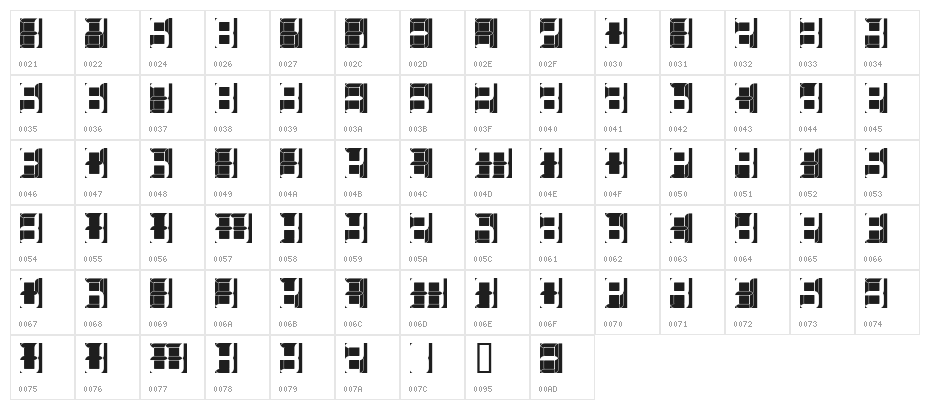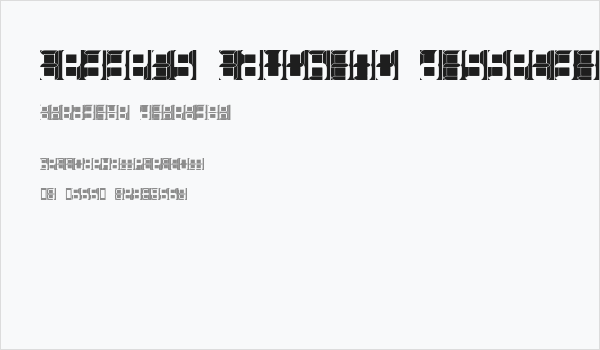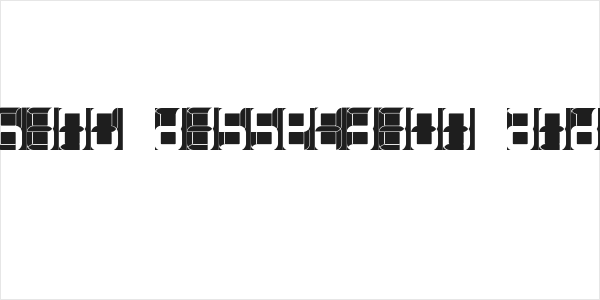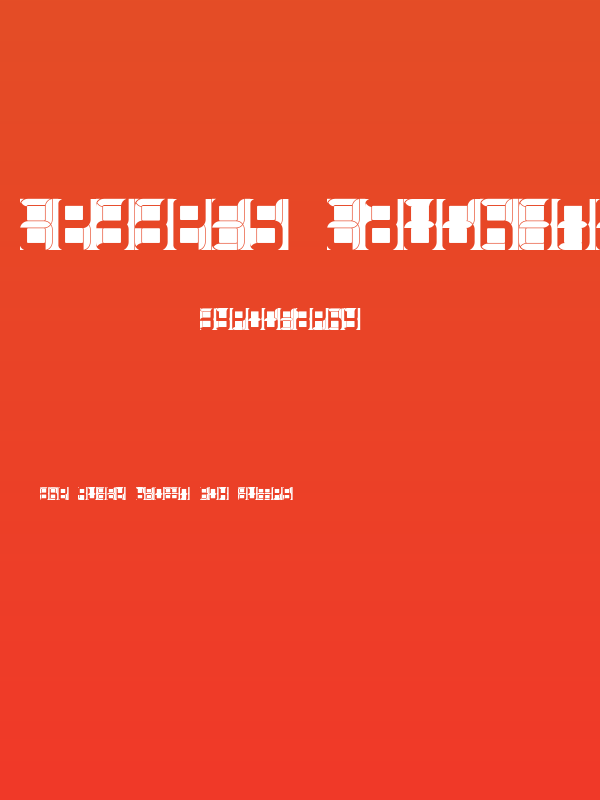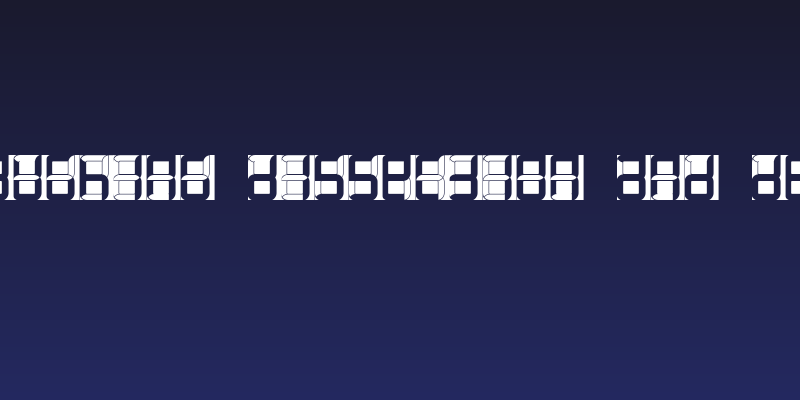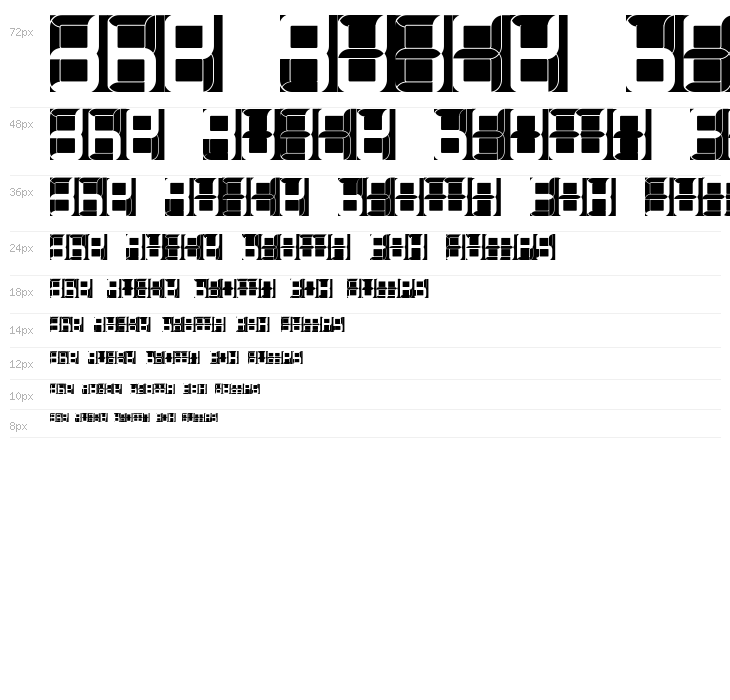
Letters Laughing Dissection and Destruction Font
Letters Laughing Dissection and Destruction Description
This font features a highly abstract and geometric design, where each character is constructed from a series of interconnected shapes and lines. The characters are composed of bold, block-like forms with intricate internal patterns, creating a sense of depth and complexity. The overall appearance is reminiscent of digital or mechanical displays, with a futuristic and avant-garde aesthetic. The font's unique structure makes it stand out, offering a visually striking and unconventional look that challenges traditional typography norms.
| Use Case | Logos, Posters, Digital Art |
| Proposed Projects | Ideal for digital art projects, modern branding, sci-fi themed designs, and experimental graphic design work. |